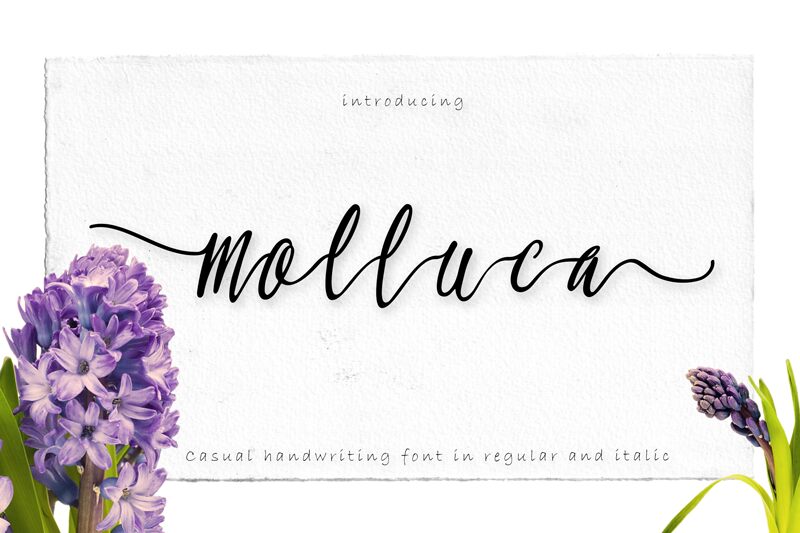
Molluca is a captivating handwritten font that exudes a sense of refined elegance. Its distinctive letterforms seamlessly blend together, creating a visually harmonious and cohesive impression.
The light weight of the font lends an airy, effortless quality, while the wider concept between letters adds a touch of sophistication. Molluca's regular and italic variants offer versatility, making it a suitable choice for a wide range of design applications, from editorial layouts to branding and packaging.
Its ability to convey an expensive, high-quality aesthetic makes it an invaluable asset for designers seeking to elevate their projects with a touch of refined style.